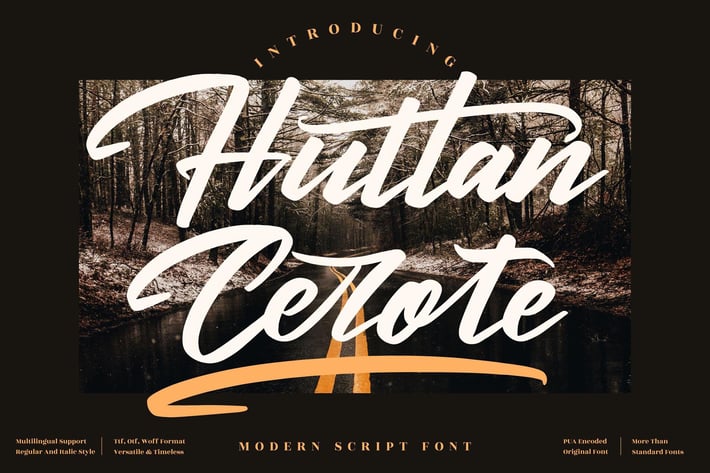
Huttan Cerote Script Font
Huttan Cerote is a modern and expressive script font that combines the charm of classic calligraphy with a bold, contemporary edge. Its flowing curves and elegant strokes make it an excellent choice for creating stylish and impactful designs. Perfect for projects that demand both sophistication and personality.
Modern and elegant script style
Smooth, natural stroke flow with stylish ligatures
Branding and logo design
Fashion and lifestyle campaigns
Wedding invitations and stationery
Social media graphics and quotes
Product packaging and signage
* Editorial layouts and modern posters
Graceful, modern, and effortlessly expressive — Huttan Cerote adds timeless sophistication to every creative project.